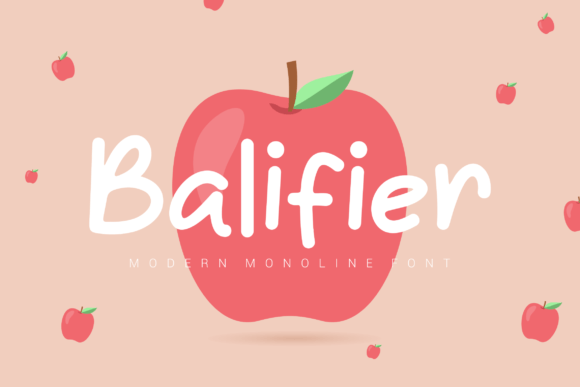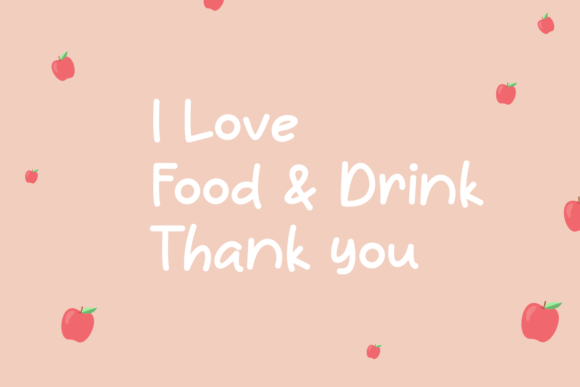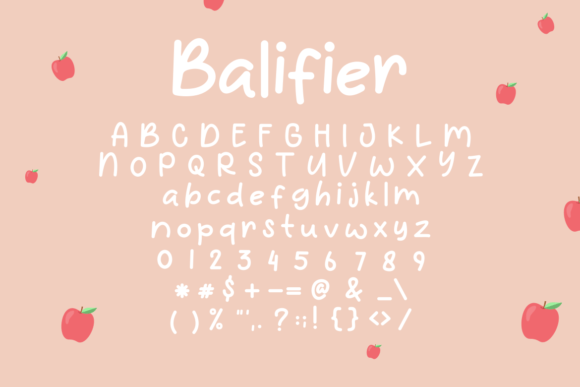
Balifier Font
About Balifier Font
“Balifier” is a modern and casual handwritten font that offers versatility and a contemporary feel. This font’s casual and approachable design makes it suitable for a wide range of design projects, and its clean and readable style ensures that it can become your go-to font for various occasions.
One of the key strengths of “Balifier” is its modern and casual appearance. The font’s handwritten style adds a personal touch to your designs, making them feel more approachable and friendly. This quality makes “Balifier” an excellent choice for projects where you want to convey a sense of warmth and informality.
The versatility of “Balifier” is a notable feature. It can be used in a variety of design contexts, making it a valuable asset for designers. Whether you’re working on crafts, digital design, presentations, greeting cards, or other creative projects, “Balifier” adapts easily to different design needs.
Craft projects can benefit from “Balifier’s” casual and friendly style. Whether you’re creating handmade cards, scrapbooks, or other crafty items, this font adds a personal and charming element to your creations. It’s particularly suitable for adding text to DIY projects that require a handwritten touch.
In digital design, “Balifier” can be used to create engaging and approachable graphics. It’s an ideal choice for web and social media graphics, as well as digital presentations. The font’s clean and readable characters ensure that your message is communicated effectively, while its handwritten style adds character and personality.
“Greeting cards are another area where “Balifier” shines. Whether you’re designing birthday cards, thank-you notes, or invitations, this font can help convey a warm and friendly tone. Its handwritten look adds a personal feel that resonates with recipients, making your cards more memorable.
The casual and modern design of “Balifier” also makes it suitable for various types of branding and marketing materials. From product labels to promotional materials, this font can add a touch of informality and approachability to your branding efforts.
In summary, “Balifier” is a modern and casual handwritten font that offers versatility and readability. Its clean and friendly design makes it well-suited for a wide range of design projects, including crafts, digital design, presentations, and greeting cards. Whether you’re looking to add a personal touch to your creations or convey a sense of approachability in your designs, “Balifier” is a font that can become your favorite go-to choice for many occasions.